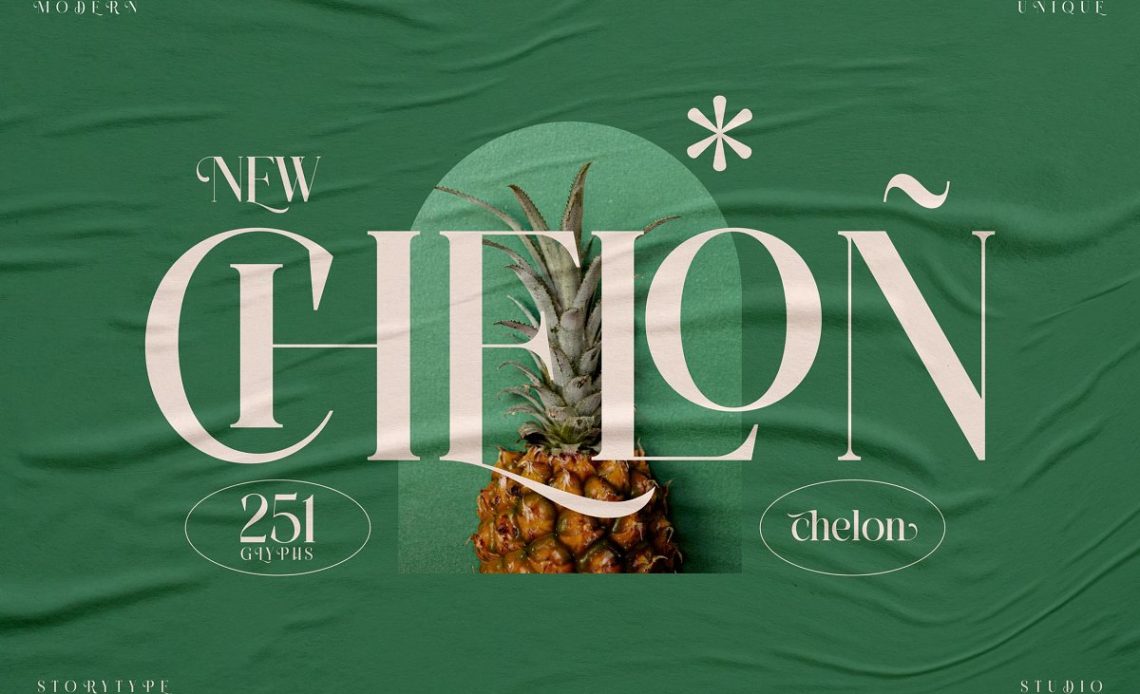
Are you in search of the best fonts for website titles? Look no further than CHELON Classy Serif Font! Created by the talented Rena Marliana as part of the Mega Bundle from Storytype Studio, this font family is sure to impress.
With over 100 modern and minimalist serif fonts to choose from in the bundle, and even a smaller 50+ option, CHELON stands out as a classic typeface with a unique style and modern look. It is the perfect addition to any elegant and luxurious logo, book or movie title design, fashion brand, magazine, clothes, lettering, or quote.
Featuring both uppercase and lowercase letters, numerals, punctuations, and accents, this font offers a wide range of multilingual characters, ligatures, and alternative style stylistic sets. It works seamlessly on both PC and Mac, and installation is a breeze.
Proudly present your brand with the sophistication and class of CHELON Classy Serif Font. This font is more than just letters on a page; it is a work of art that exudes elegance and luxury. Use it to elevate your brand and capture the attention of your target audience.